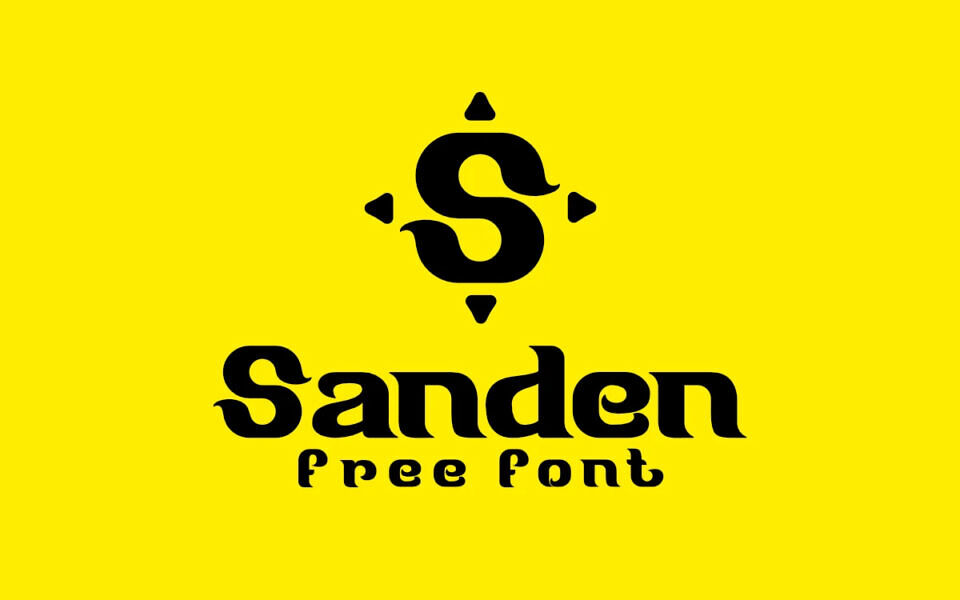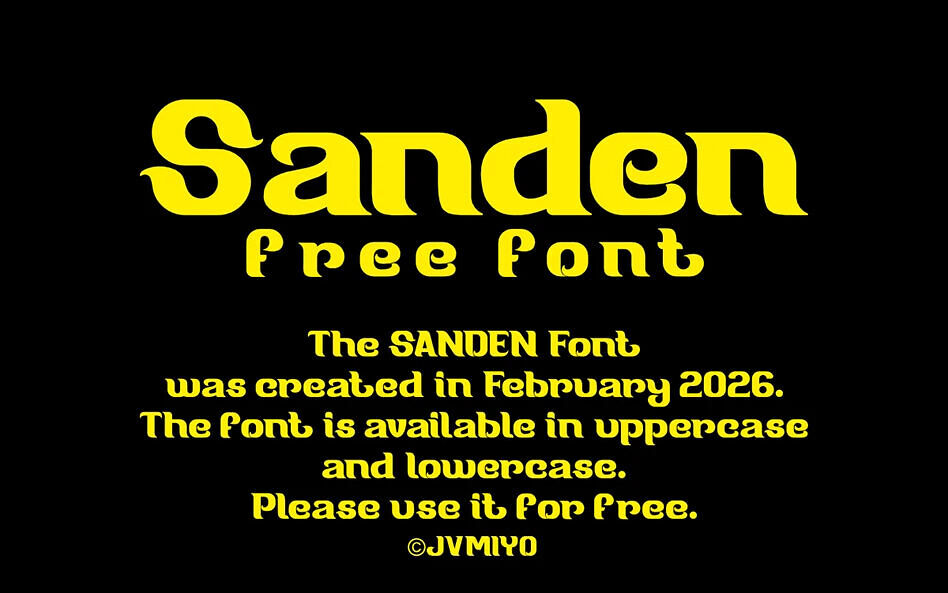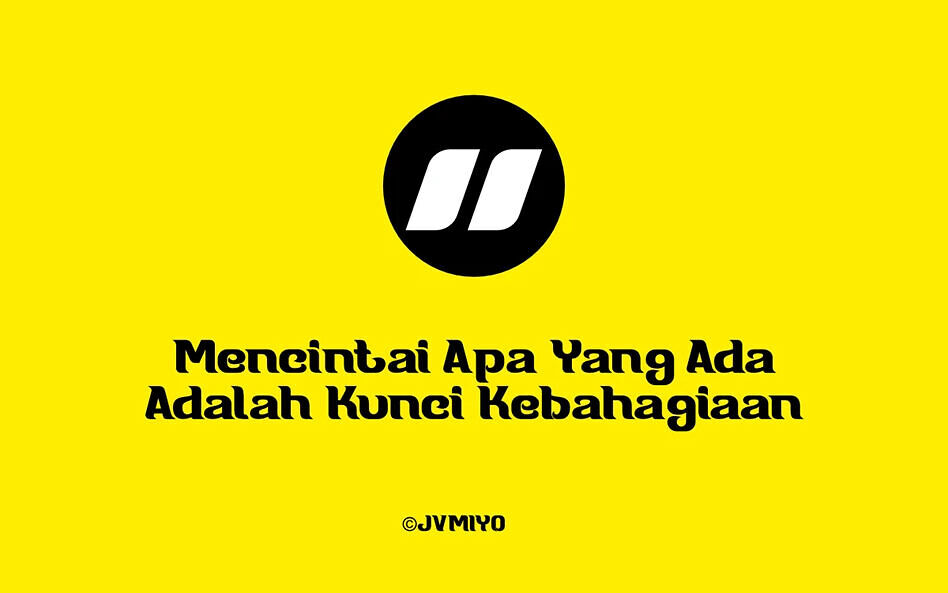
Sanden Font
Sanden is a captivating free font createdby JVMIYO. This retro-inspired display typeface features bold, fluid curves and psychedelic-style letterforms, blending 1970s nostalgia with modern flair.
Available in both uppercase and lowercase, Sanden is perfect for high-impact branding, vintage posters, and expressive headlines. Its thick, grooved strokes and unique ornamental details make it a standout choice for designers seeking a trippy, organic aesthetic.